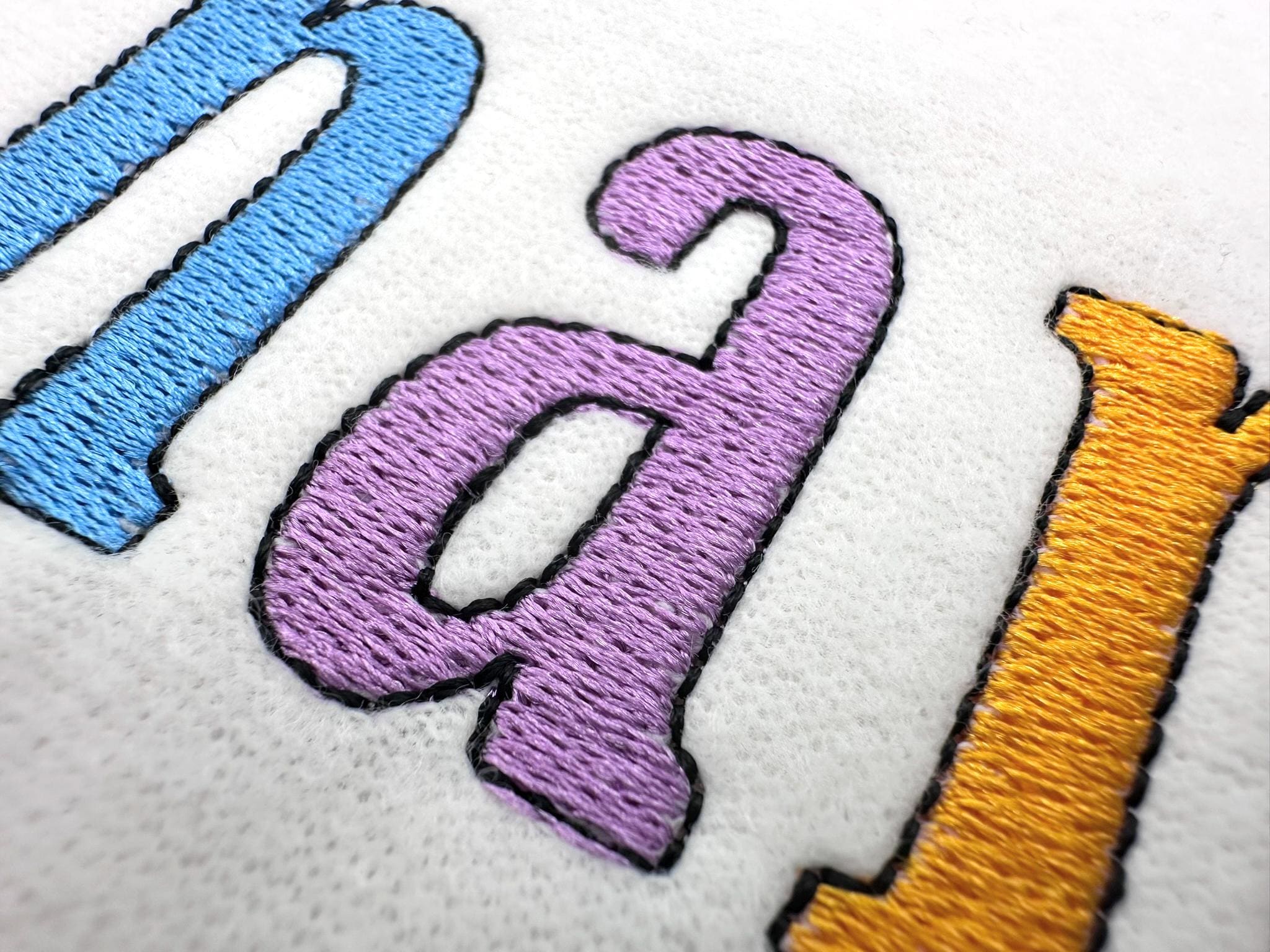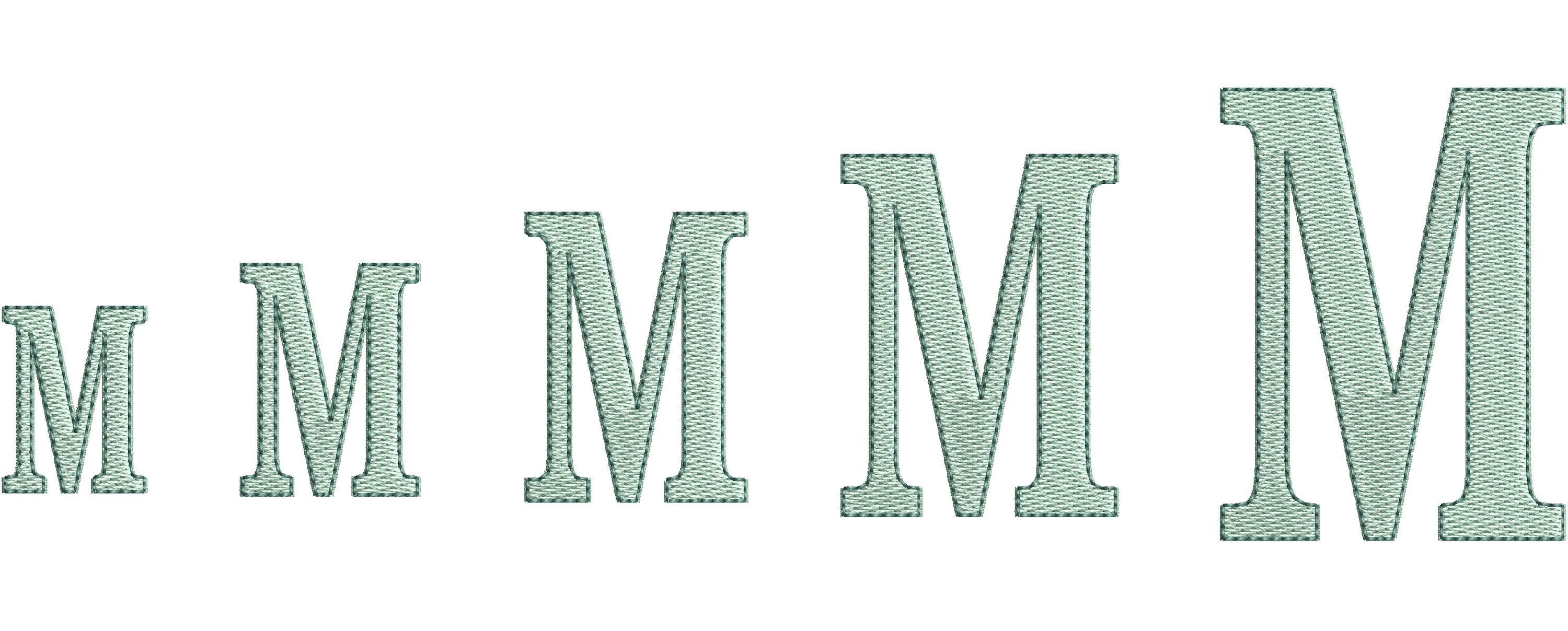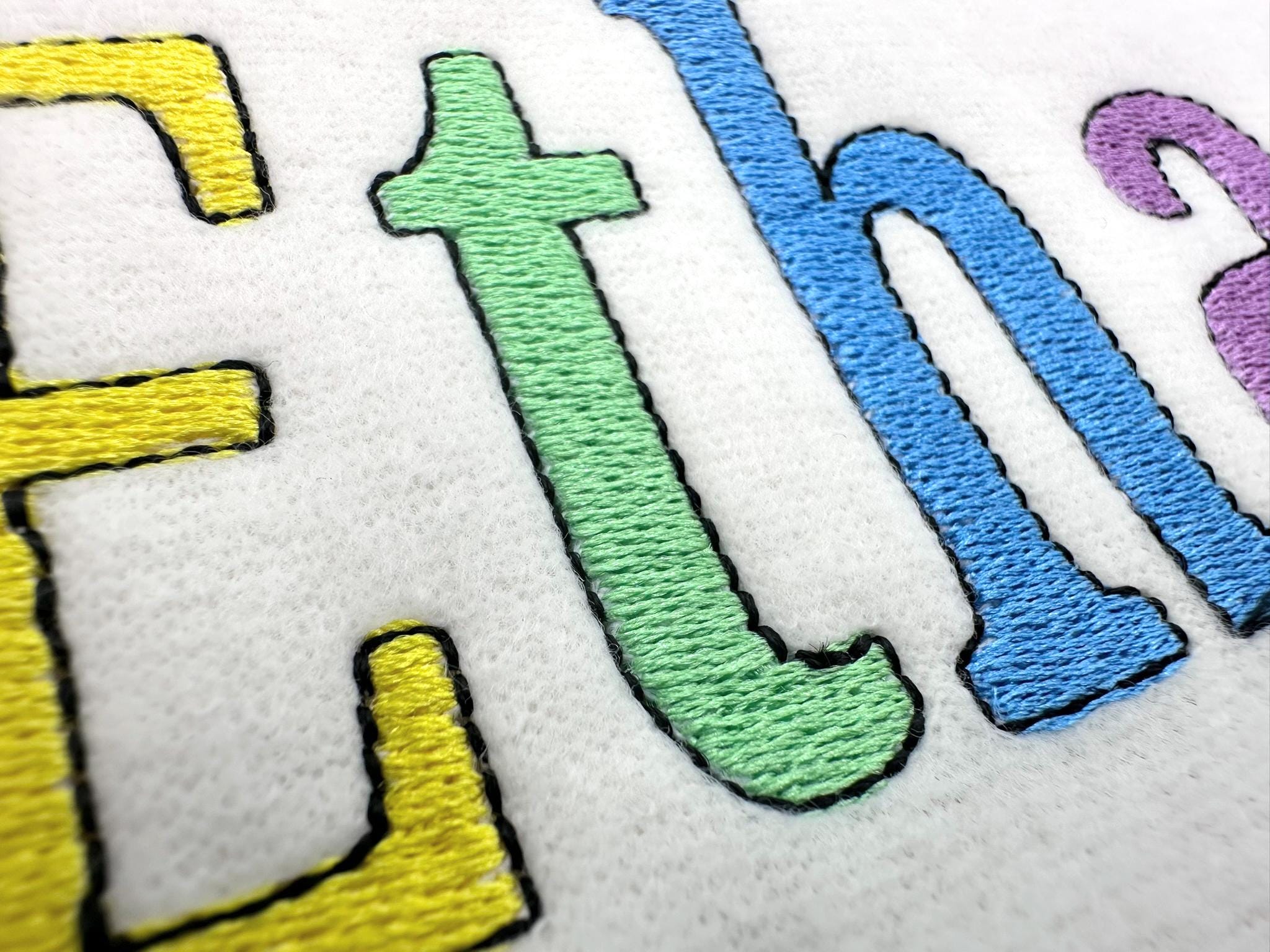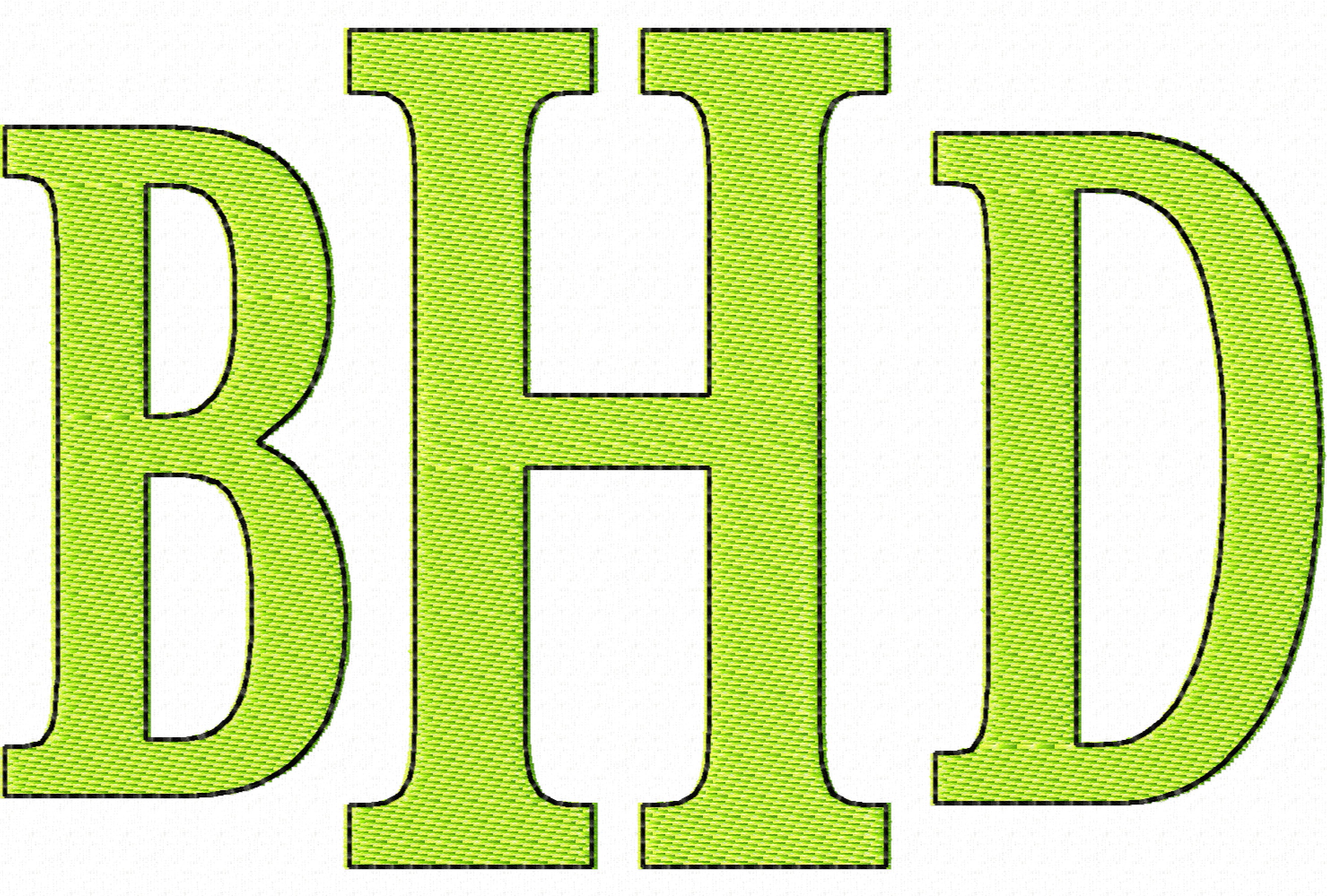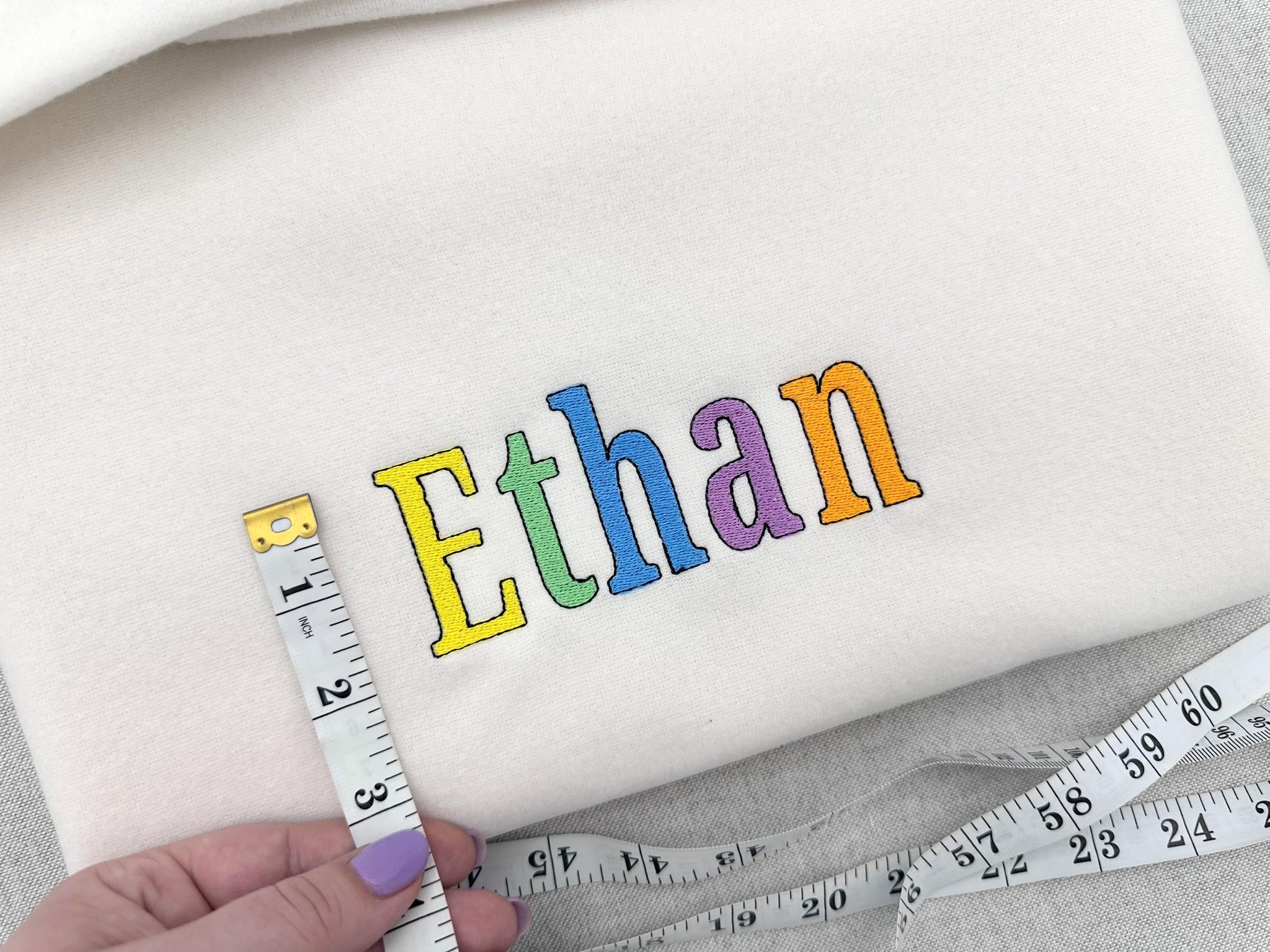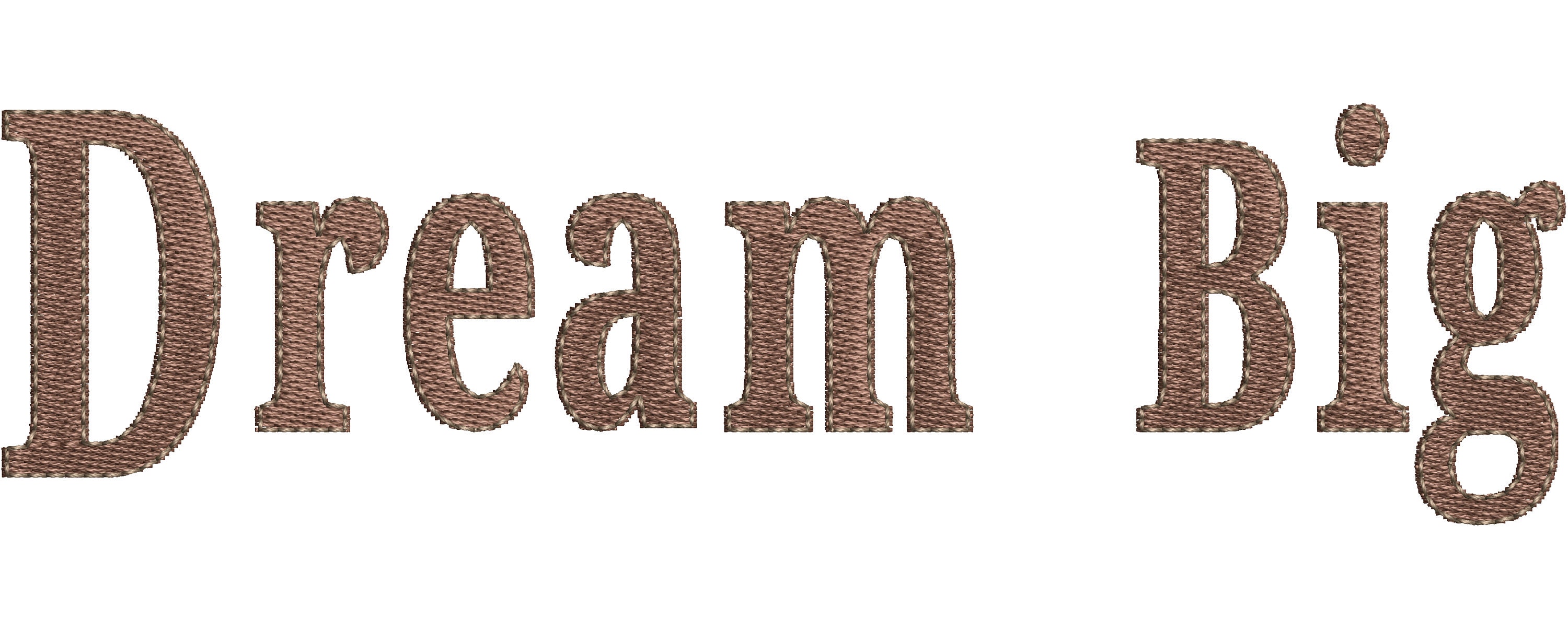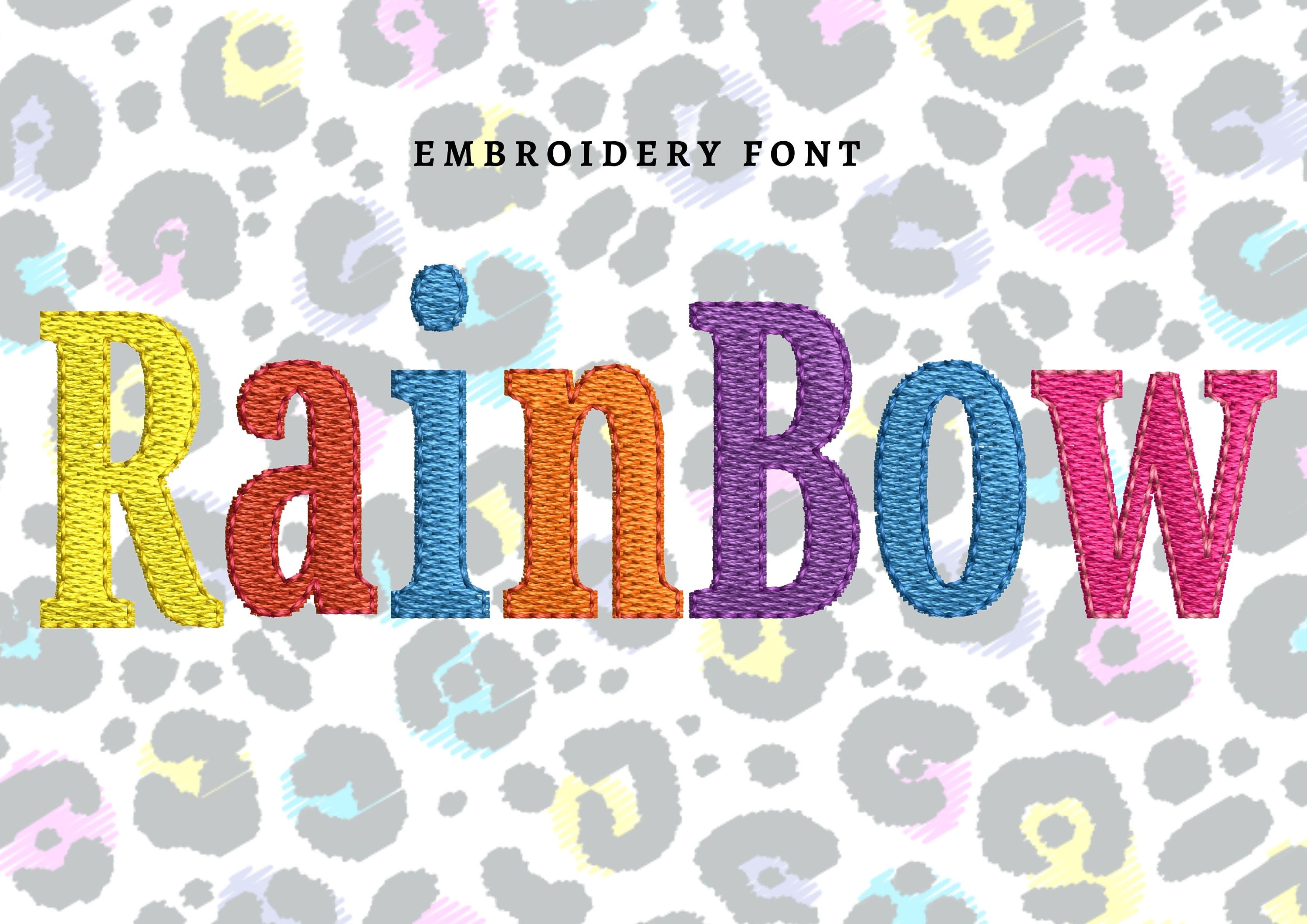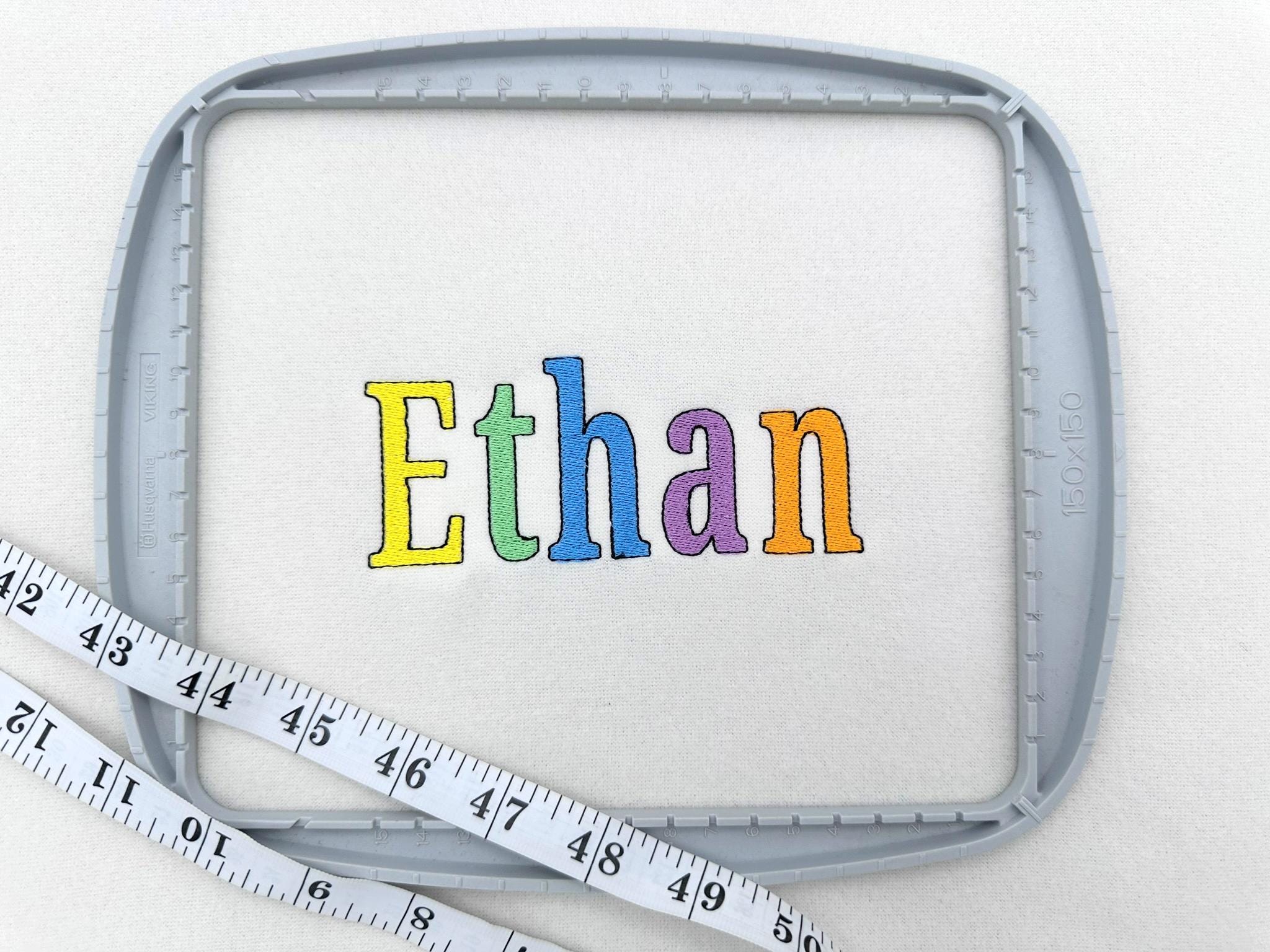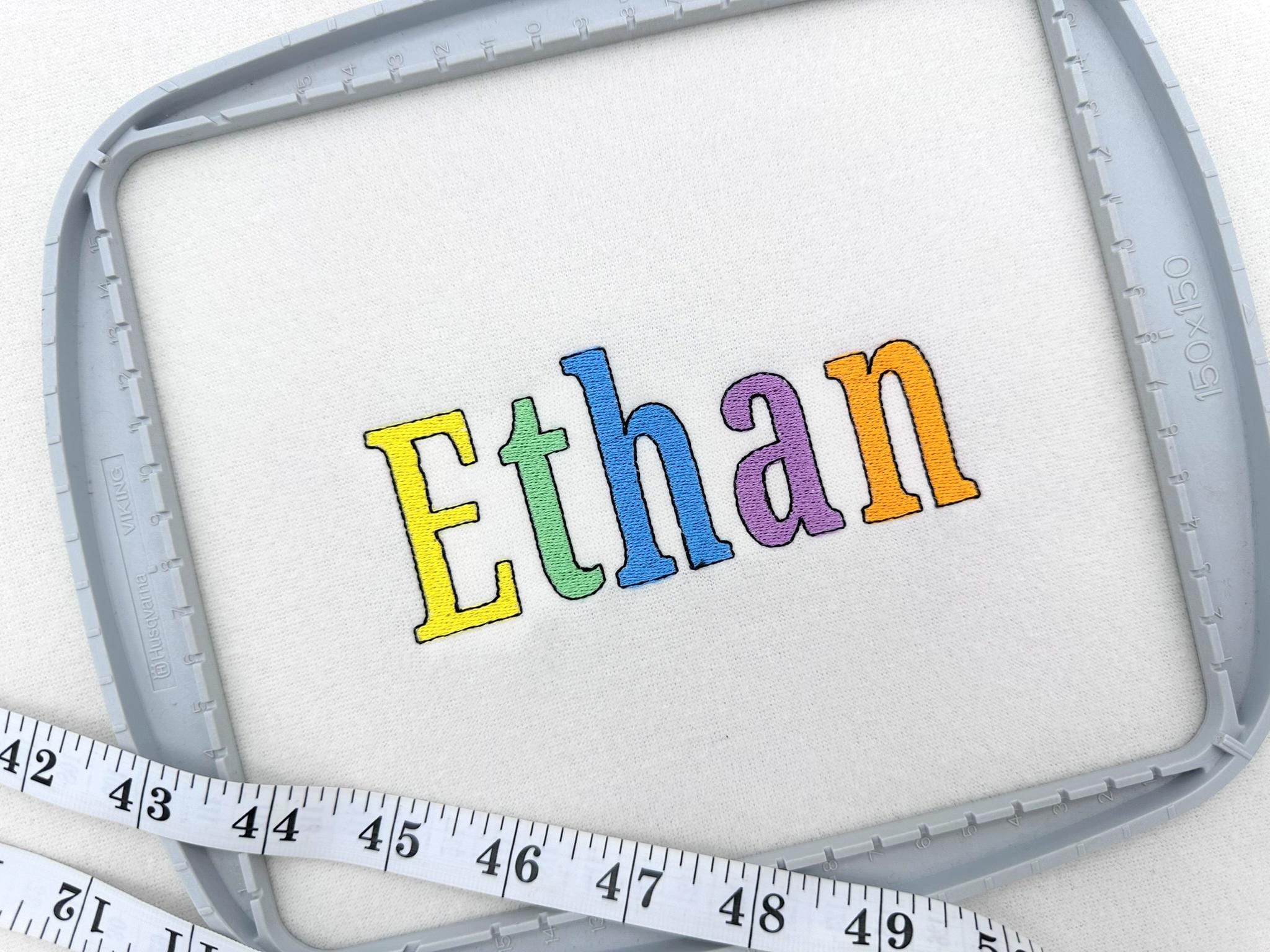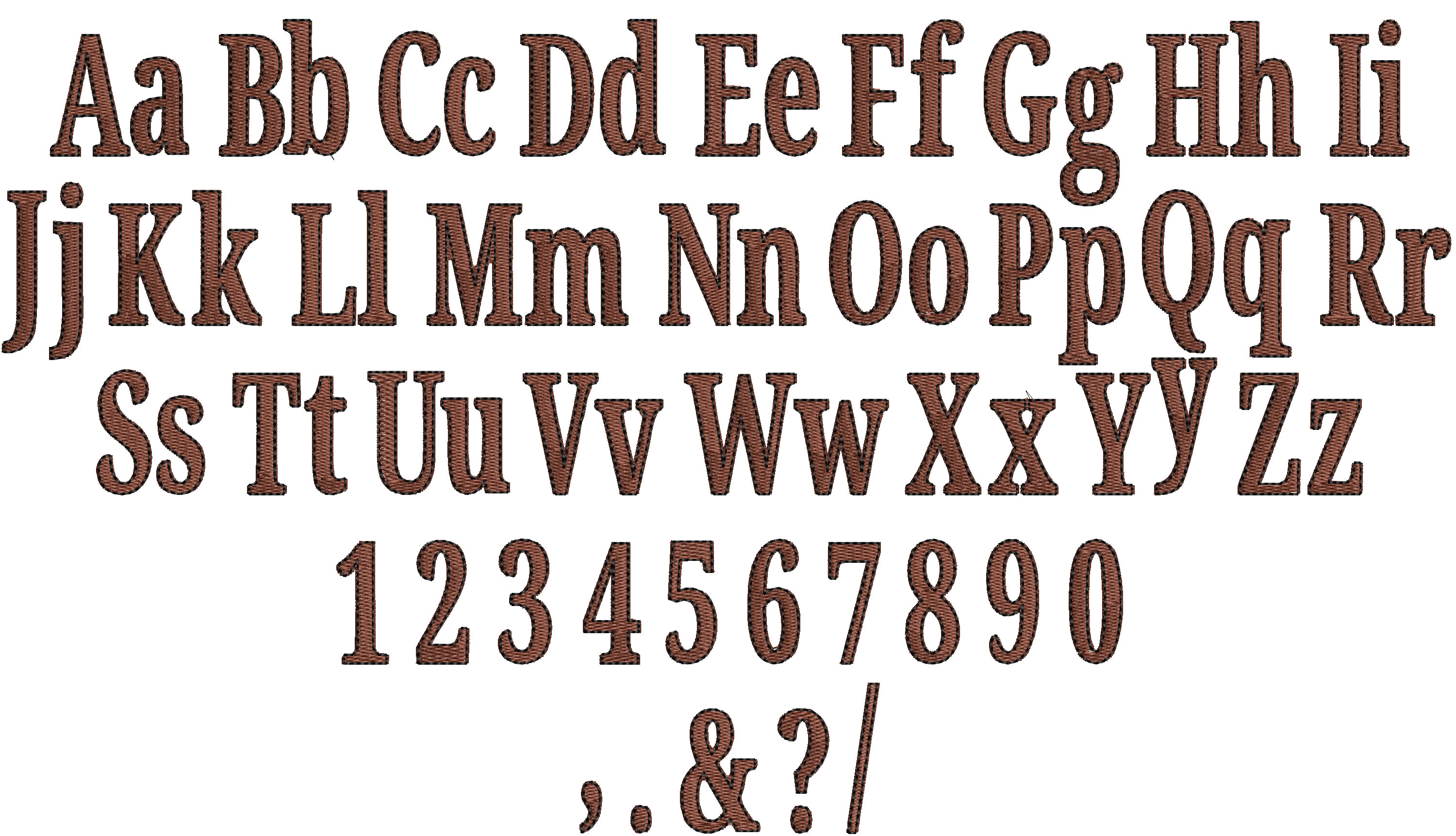
Block Font monogram alphabet with outline machine embroidery designs, alphabet letters monogram sizes from 1 thru 4 inches, BX included
Whole alphabet from A up to Z uppercase and lowercase, numbers and punctuation.
Fill stitch alphabet with thin bean stitch outline.